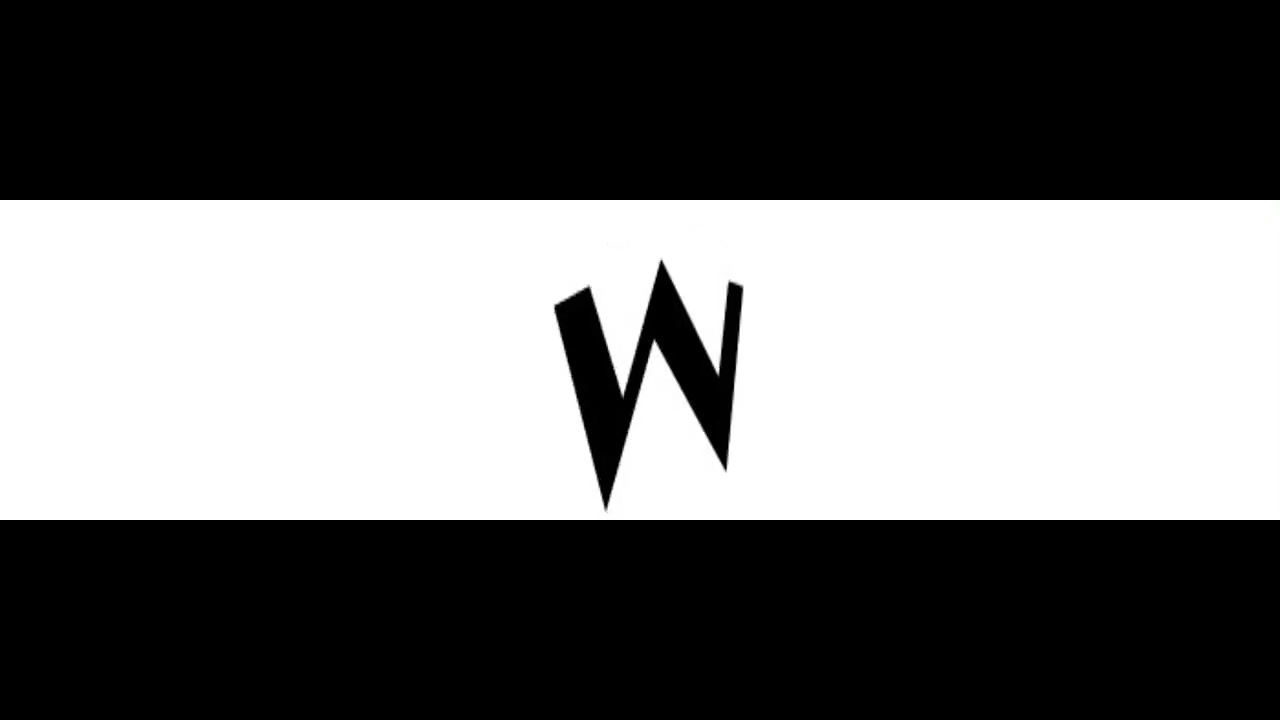
Funhouse Font
Funhouse Font By Darrell Flood Fontriver Funhouse is a font. the typeface contains 1 file and supports 12 languages. funhouse was developed darrell flood. Download funhouse font for windows and mac. funhouse font was designed by darrell flood and has been downloaded 10,806 times. Download funhouse font from free cdn or use it on your website as webfont. This playful and whimsical font features irregular, exaggerated strokes that give it a lively and energetic appearance. the characters are bold and slightly tilted, creating a sense of movement and fun.
Funhouse Font By Darrell Flood Fontriver Download funhouse font from free cdn or use it on your website as webfont. This playful and whimsical font features irregular, exaggerated strokes that give it a lively and energetic appearance. the characters are bold and slightly tilted, creating a sense of movement and fun. Download the funhouse font for free for your project at fontsforyou. on the font page, you will find examples of letters, the alphabet, character samples, text generator, and license information. Download funhouse font for pc mac for free, take a test drive and see the entire character set. moreover, you can embed it to your website with @font face support. This cartoon font gives off an obvious feeling of playfulness that turns funhouse into a great choice for your gaming or website graphics, clothing, or children’s books. Get the funhouse font free and craft outstanding typography. best for presentations, banners, creative prints, and digital projects.
Funhouse Font By Darrell Flood Fontriver Download the funhouse font for free for your project at fontsforyou. on the font page, you will find examples of letters, the alphabet, character samples, text generator, and license information. Download funhouse font for pc mac for free, take a test drive and see the entire character set. moreover, you can embed it to your website with @font face support. This cartoon font gives off an obvious feeling of playfulness that turns funhouse into a great choice for your gaming or website graphics, clothing, or children’s books. Get the funhouse font free and craft outstanding typography. best for presentations, banners, creative prints, and digital projects.